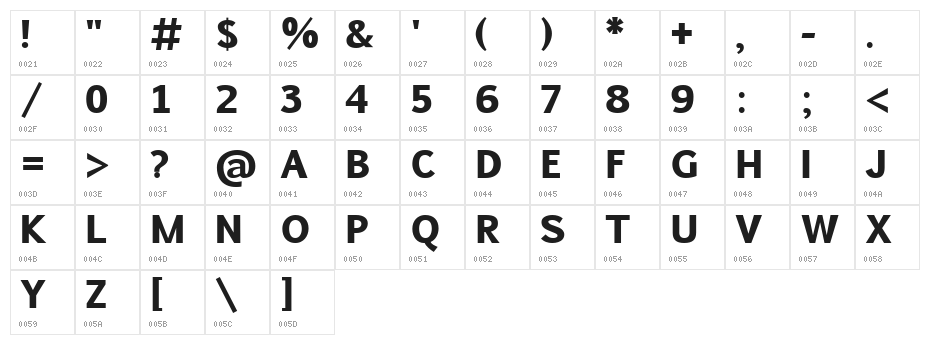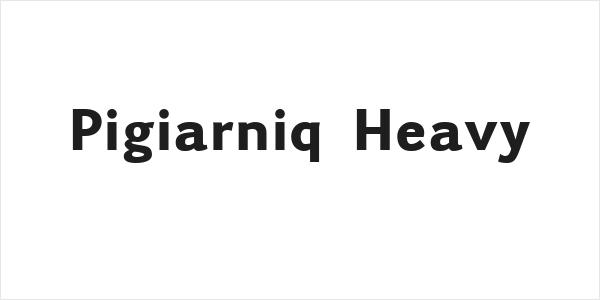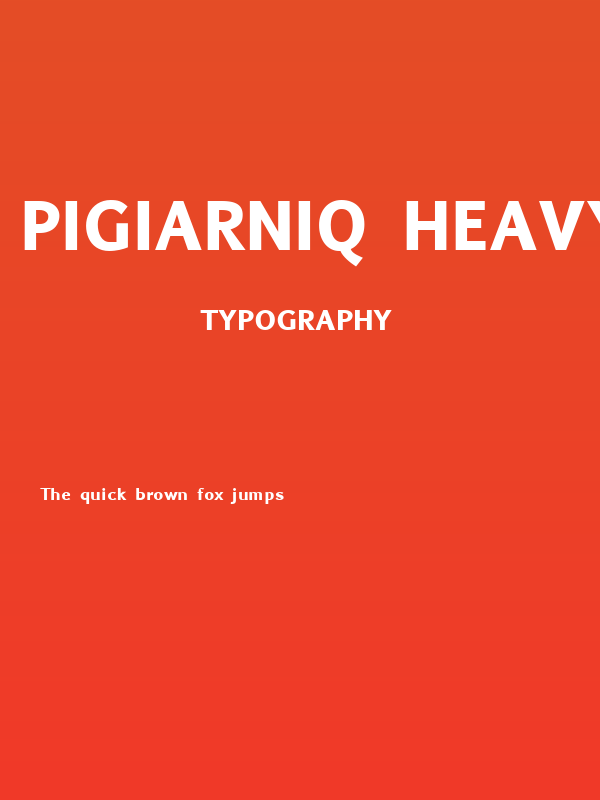
Pigiarniq Heavy Font
Pigiarniq Heavy Description
This font exhibits a bold and robust character with a strong presence, making it ideal for attention-grabbing headlines and impactful designs. The uppercase and lowercase letters are well-proportioned, with a consistent stroke width that enhances readability. The numerals are clear and distinct, ensuring legibility in various contexts. Special characters are included, providing versatility for different design needs. The overall design is modern and clean, suitable for both digital and print media.
| Proposed Projects | Ideal for branding, advertising, headlines, posters, and digital media where a strong visual impact is required. |